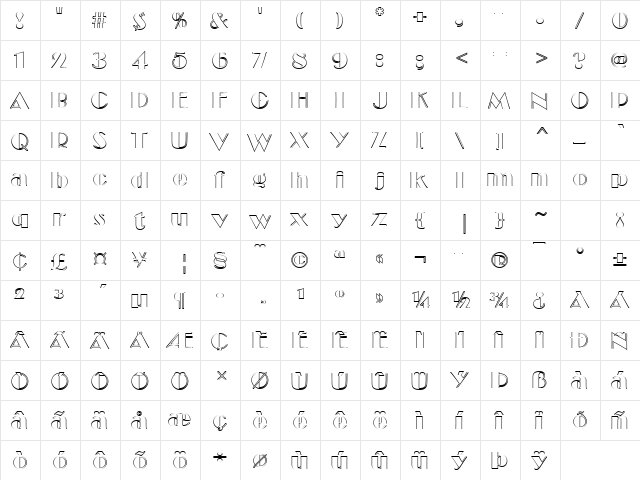
Broadway Becker Poster Outline Regular
Design Context for Broadway Becker Poster Outline Typeface
Broadway Becker Poster Outline is built around its visual character rather than neutral utility — its distinctive forms are designed to make an impression at display sizes.
Font Pairing: Pair with a clean neutral sans-serif for body copy to let Broadway Becker Poster Outline's character lead without overwhelming the composition.
Pro Tip: Use Broadway Becker Poster Outline exclusively at display sizes — it was designed to be seen, not read at length. Let a neutral companion handle body copy.